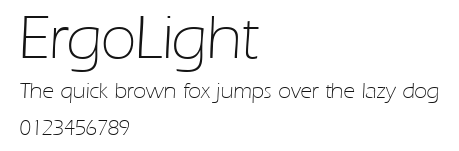
ErgoLight Preview
• Font Name: ErgoLight
• Full Font Name: ErgoLight-Regular
About ErgoLight.ttf
ErgoLight.ttf is a modern, elegant sans-serif font designed for ultimate readability and visual harmony. Perfect for branding, headlines, web design, and print materials.